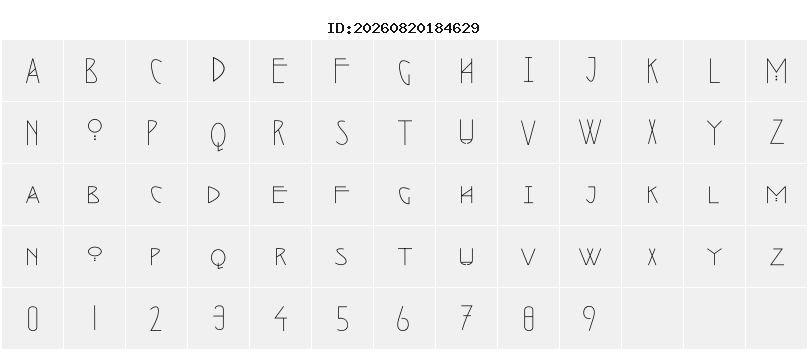
• Font Name: Seminole
• Full Font Name: Seminole Regular
• Designer: White, Andrew
• Manufacturer: PYRS Fontlab Ltd. / Made with FontLab
• Description: Seminole Regular is a font by PYRS Fontlab Ltd. / Made with FontLab, designed by White, Andrew in 2015.
About Seminole.otf
Seminole.otf is a modern, elegant sans-serif font designed for ultimate readability and visual harmony. Perfect for branding, headlines, web design, and print materials.